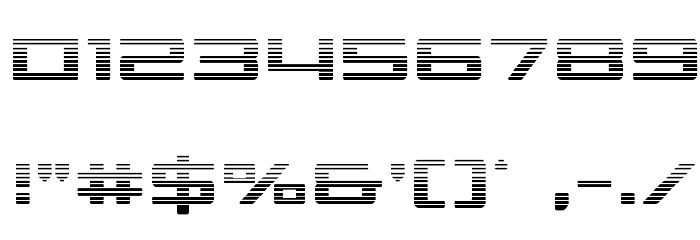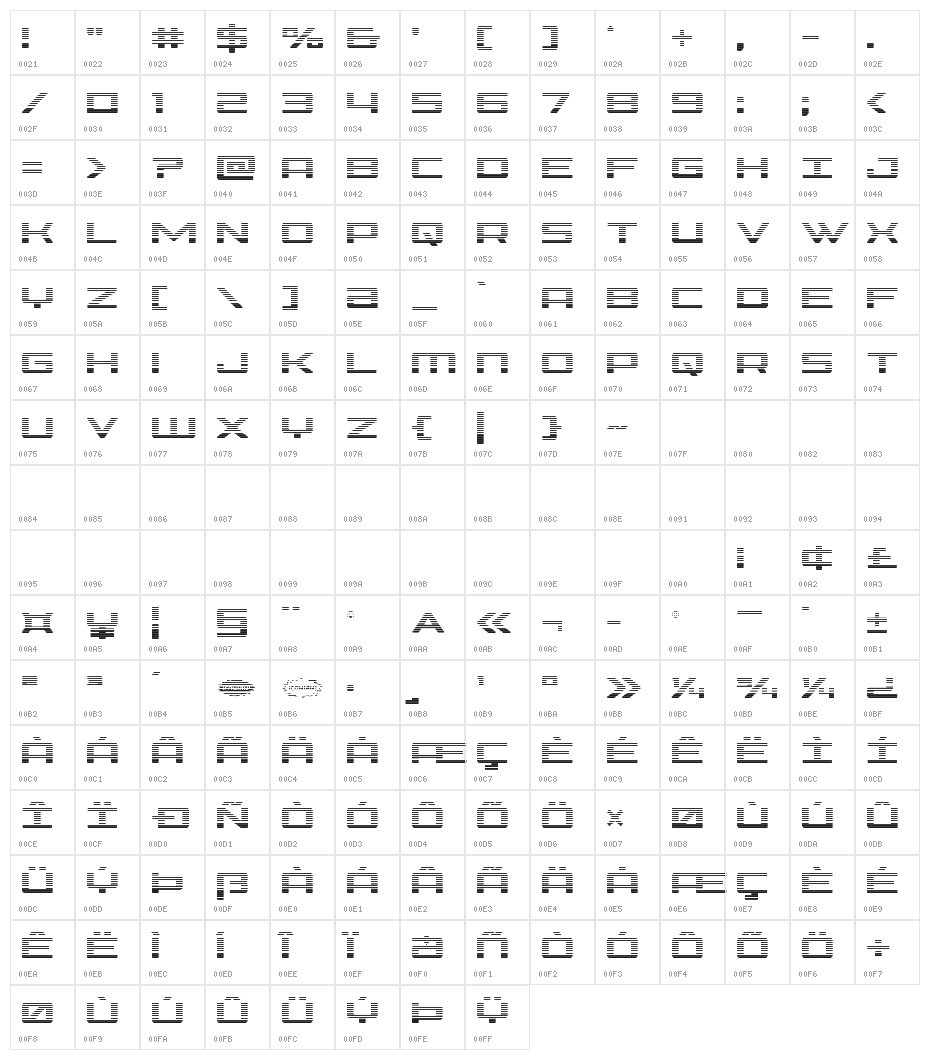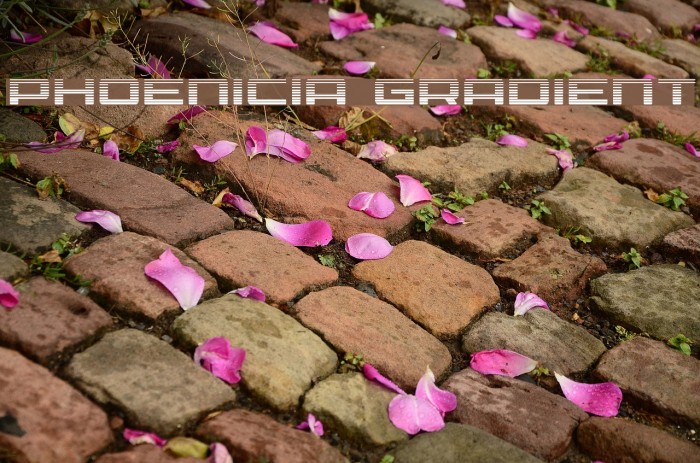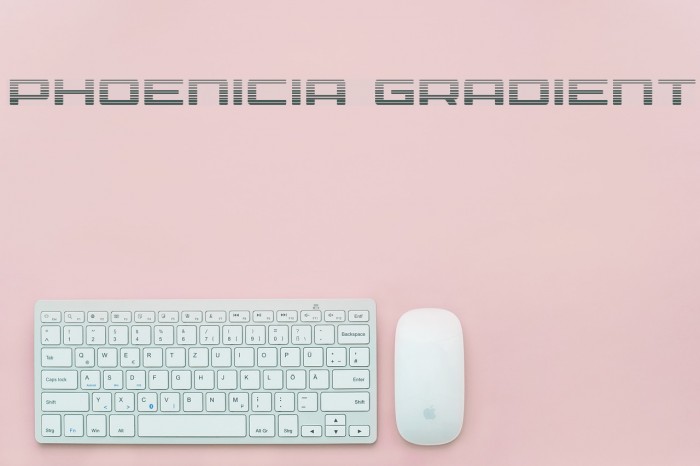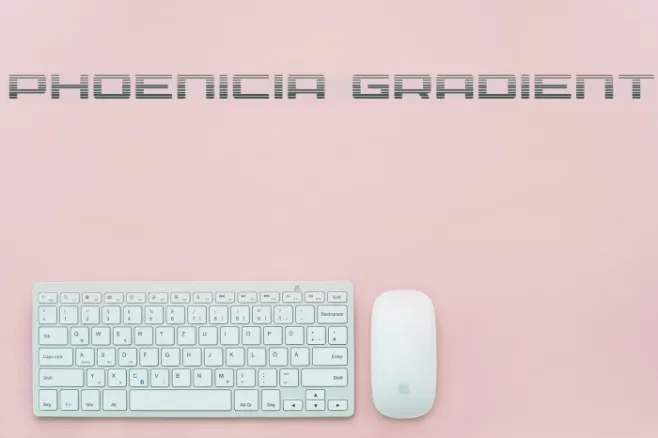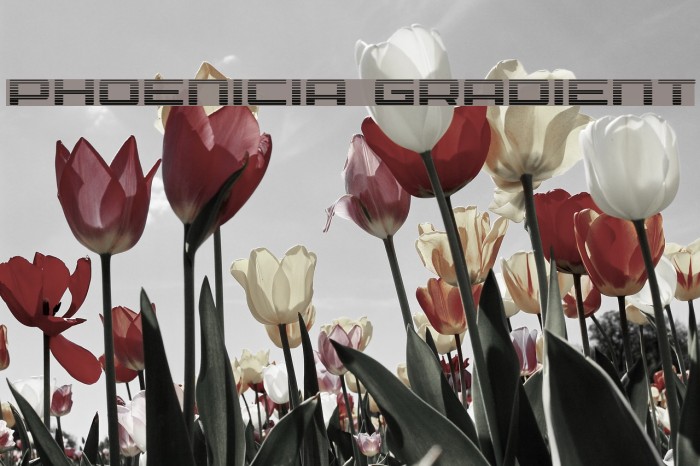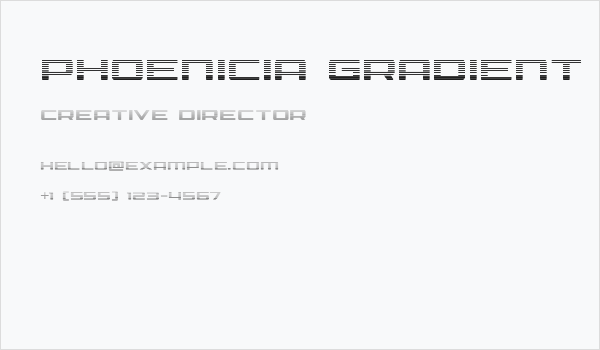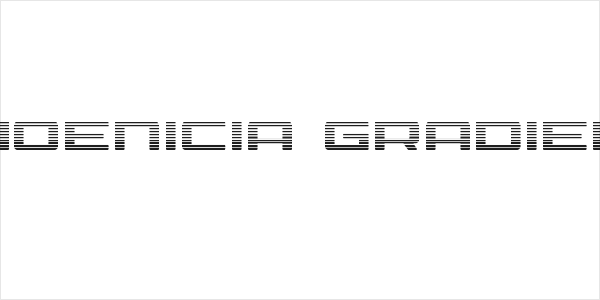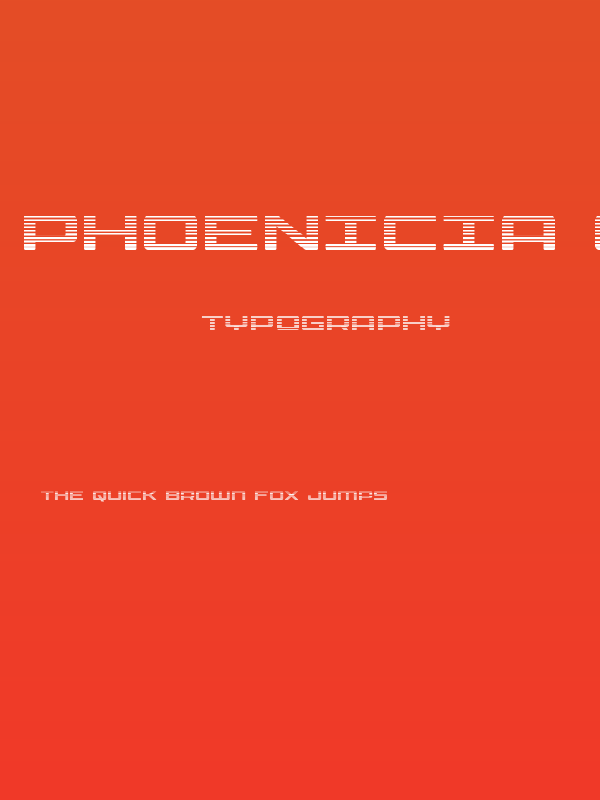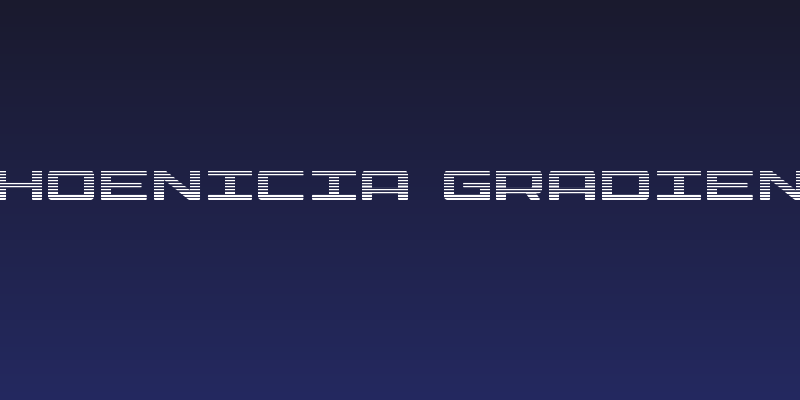
Phoenicia Gradient Font
Phoenicia Gradient Description
This font features a unique, futuristic design characterized by horizontal line patterns that create a gradient effect across each character. The geometric structure of the letters is bold and angular, giving it a modern and tech-inspired appearance. The uppercase and lowercase letters maintain a consistent style, with numbers and special characters following the same design principles. The font's distinct line work adds a sense of movement and dynamism, making it stand out in digital and print media.
| Proposed Projects | Ideal for technology branding, sci-fi themed projects, digital art, and modern advertising campaigns. |